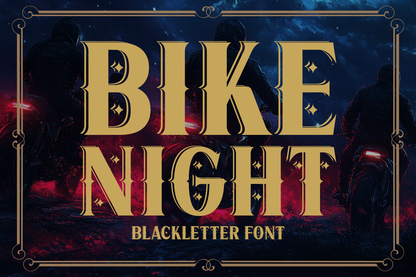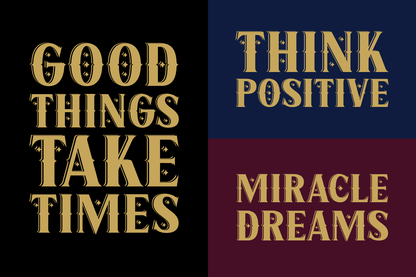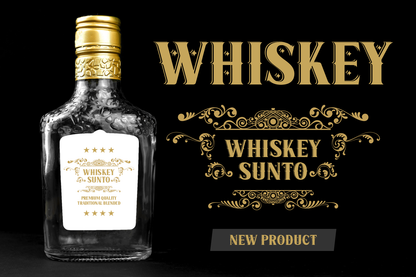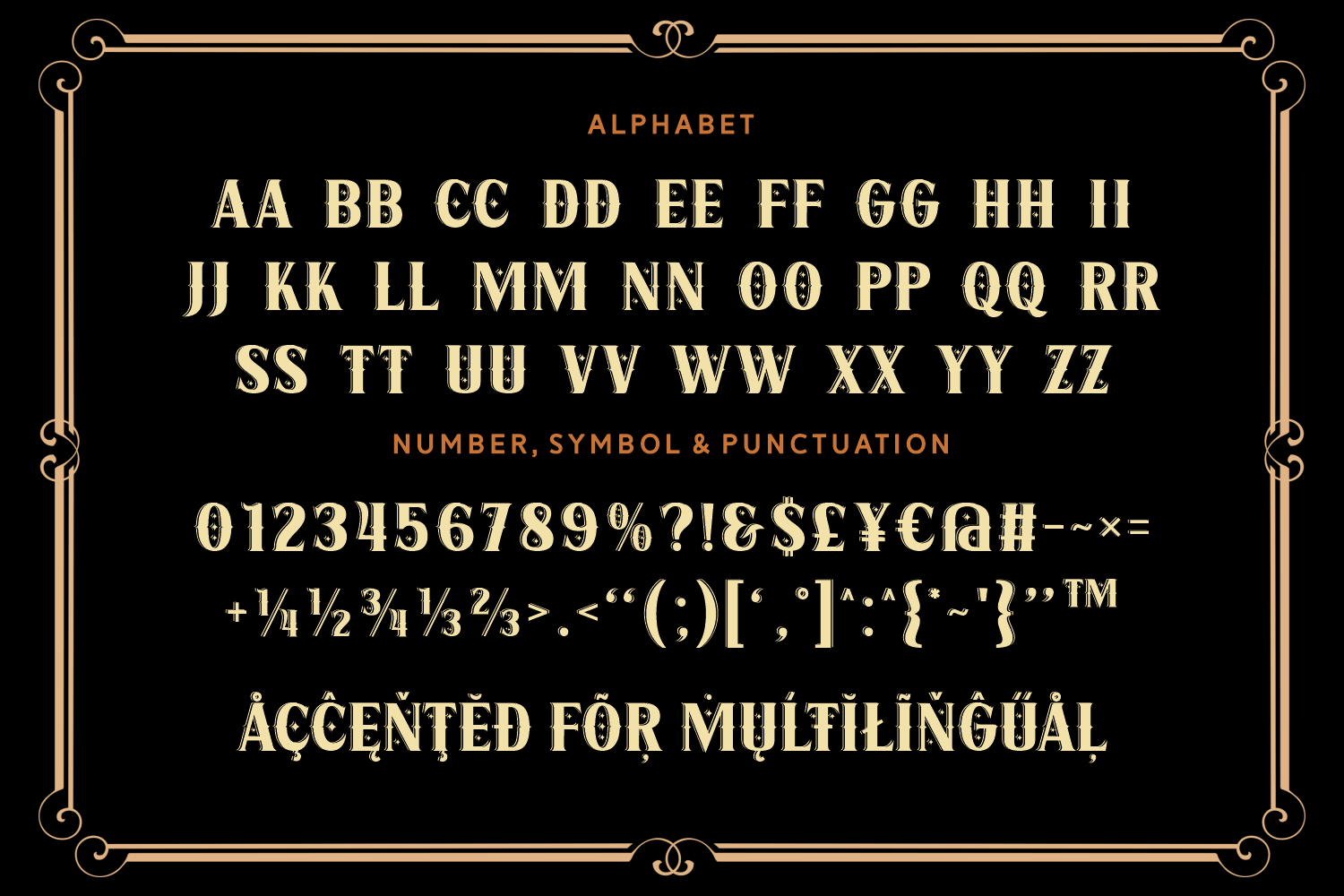
Bike Night is a bold blackletter typeface infused with biker culture aesthetics and decorative star details. Perfect for motorcycle clubs, rock events, and apparel branding seeking fearless attitude.